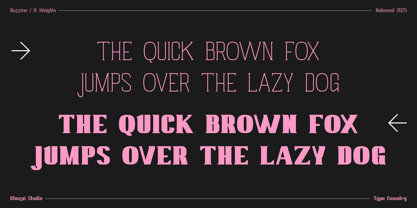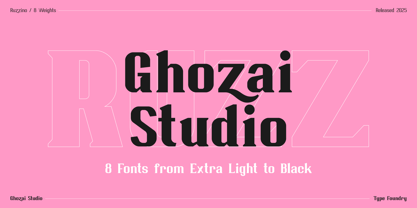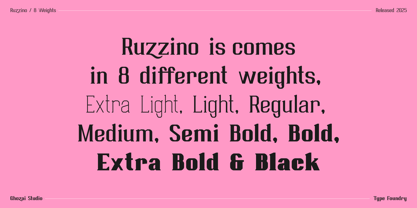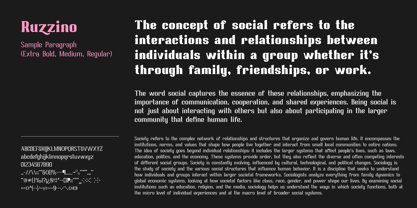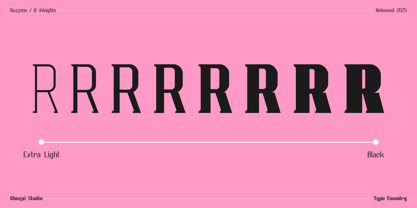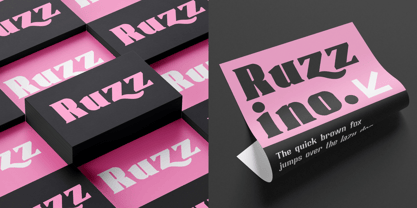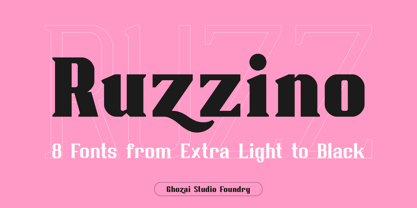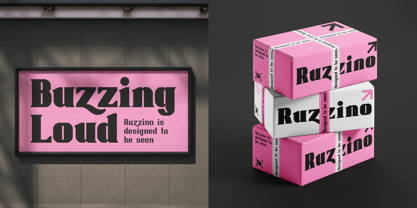
Ruzzino
por Ghozai Studio
La familia tipográfica Ruzzino fue diseñada por Manzur Ghozaali y publicada por Ghozai Studio. Ruzzino contiene 8 estilos y opciones de paquete familiar. Más información sobre esta familia
Ruzzino is a versatile font family that includes 8 weights, ranging from Extra Light to Black. With its extensive array of weights, symbols, OpenType features, and robust multilingual glyph support, Ruzzino caters to diverse design needs across different languages. Its modern, clean, and bold aesthetic makes it suitable for various applications, including display typography, branding, signage, and festival posters. Whether you are crafting striking headlines, unique logos, or legible signage, Ruzzino provides both style and functionality, seamlessly adapting to different design styles and ensuring a contemporary touch in any project.
Diseñadores: Manzur Ghozaali
Fundición: Ghozai Studio